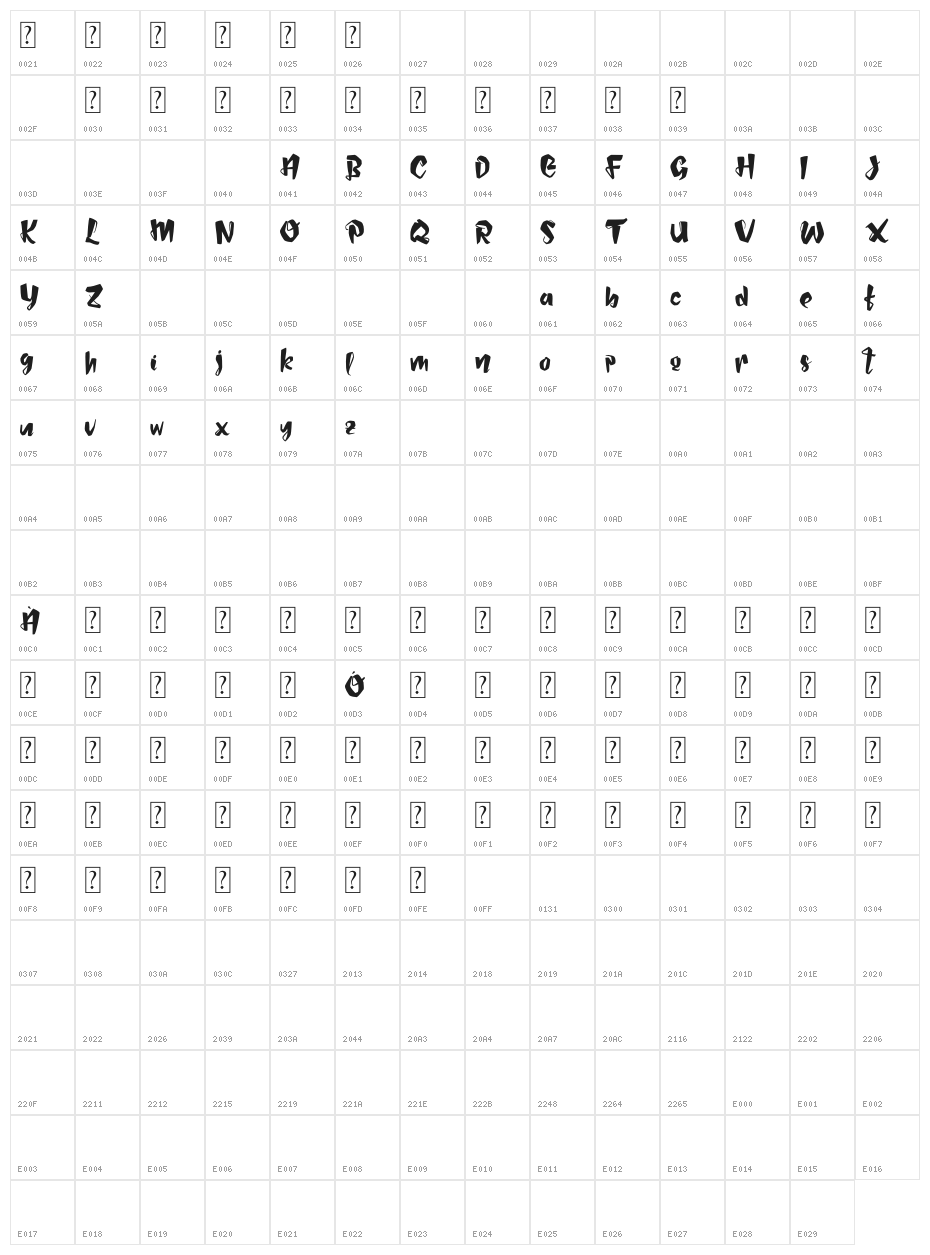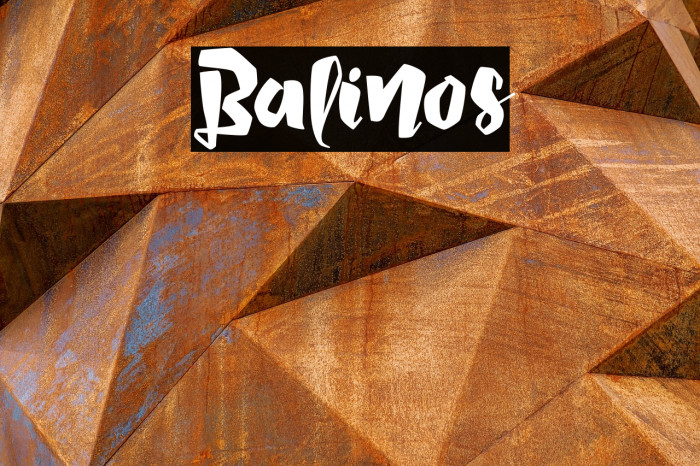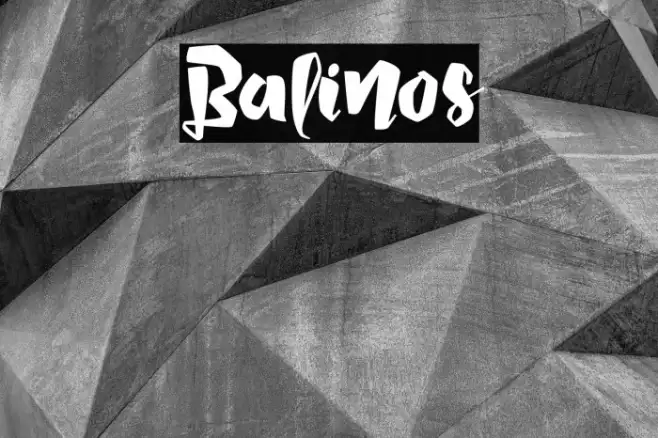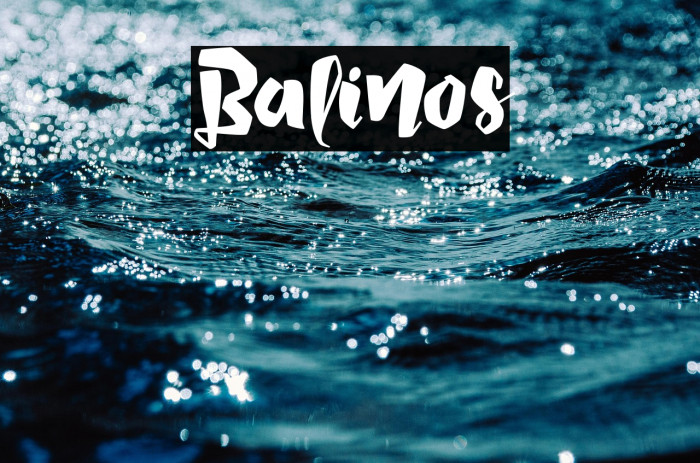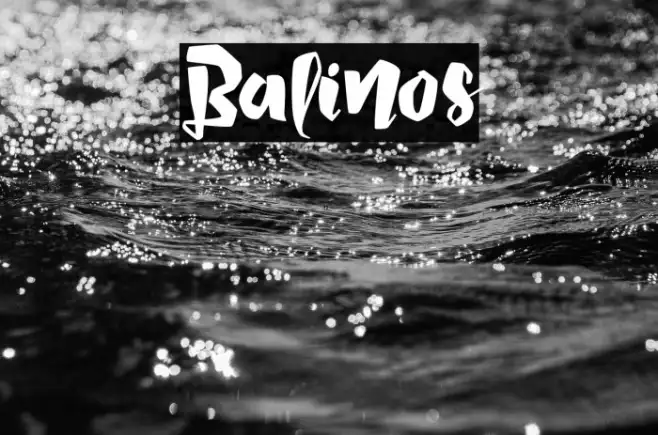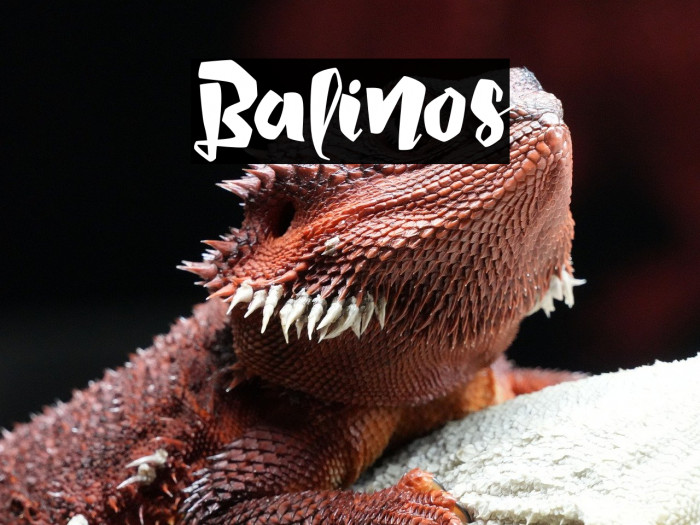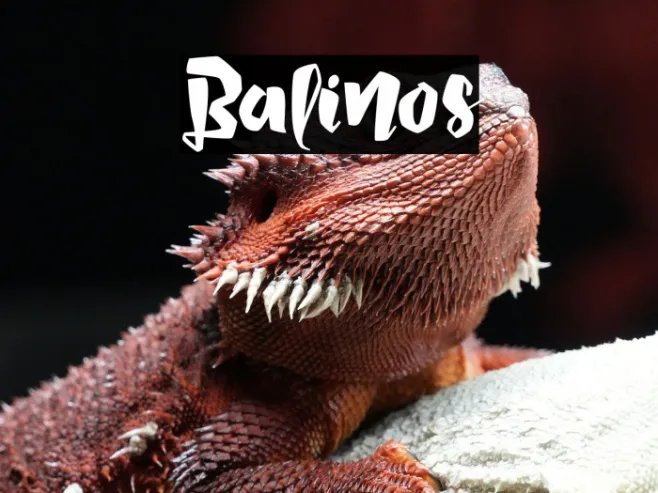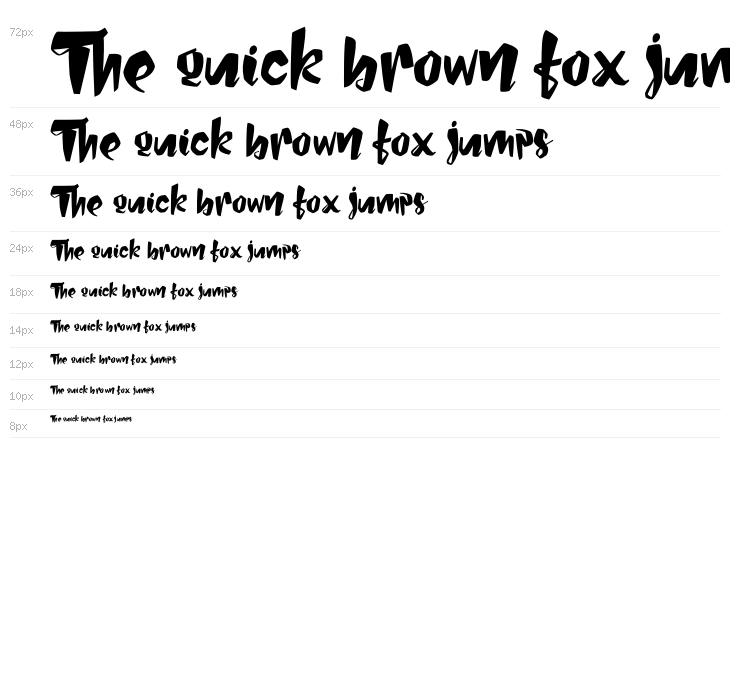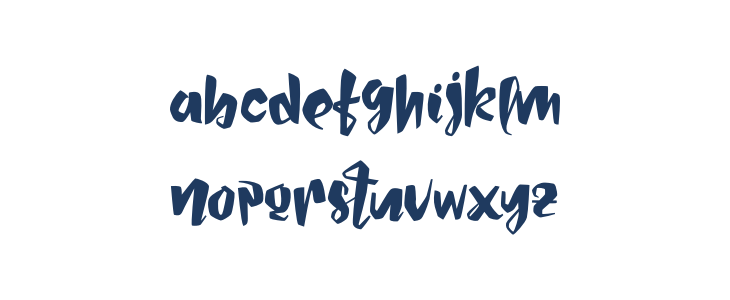
Balinos Font
Balinos Description
This font features a bold and dynamic script style with a strong presence. The characters are designed with a brush-like appearance, giving them a hand-drawn, artistic feel. The uppercase letters are particularly striking, with exaggerated strokes and unique flourishes that add a sense of movement and energy. The lowercase letters maintain this fluidity, offering a cohesive look across the alphabet. The font's playful yet sophisticated style makes it ideal for creative projects that require a touch of elegance and flair. The special characters, although not visible, are expected to follow the same stylistic cues, enhancing the font's versatility.